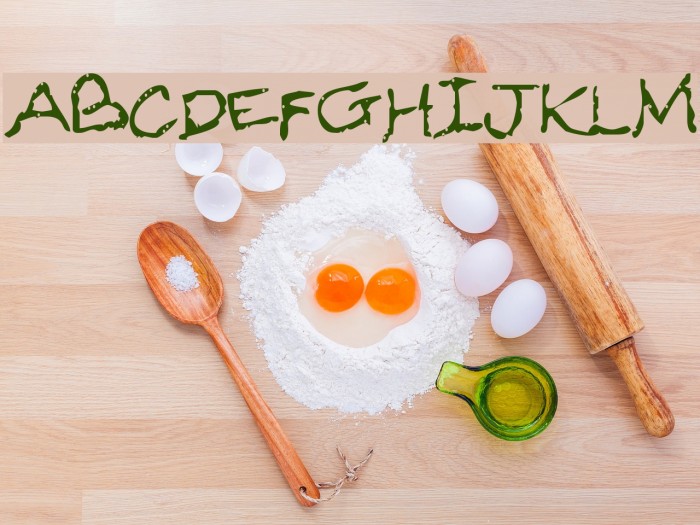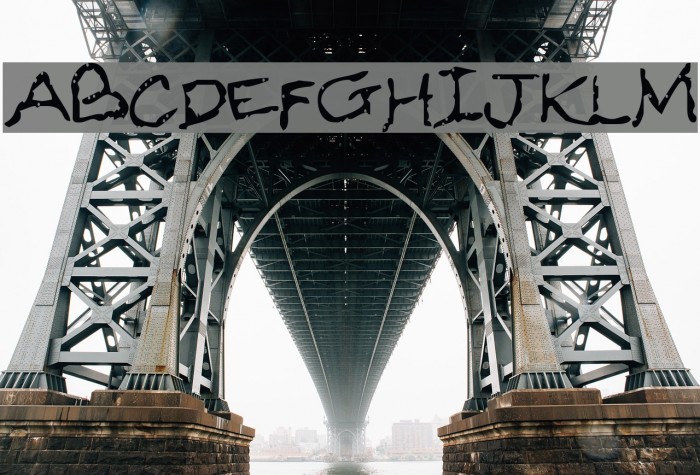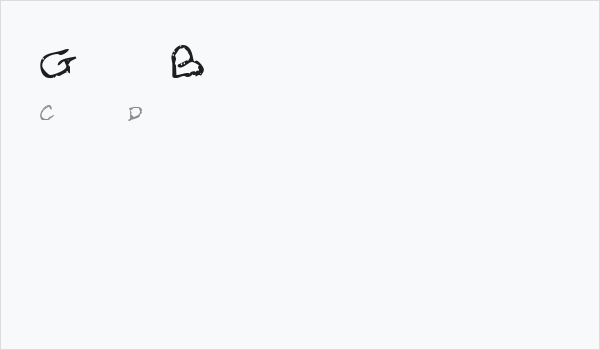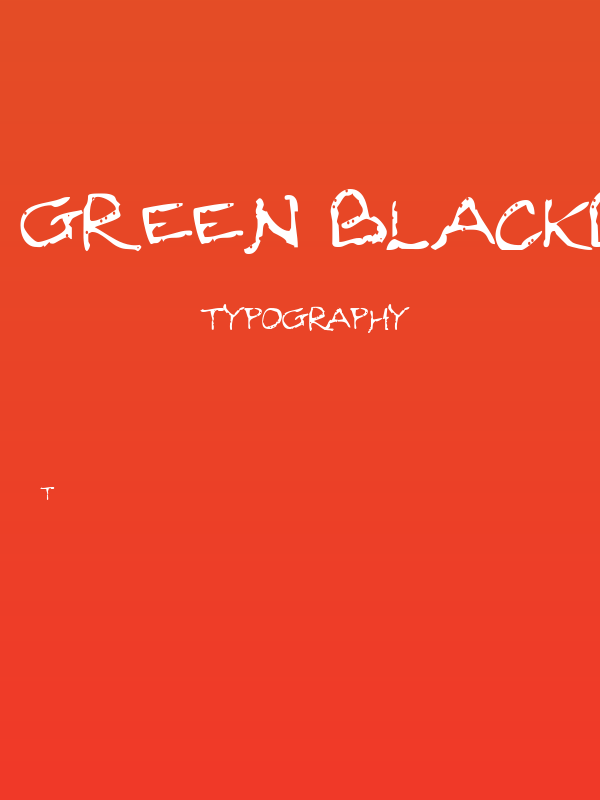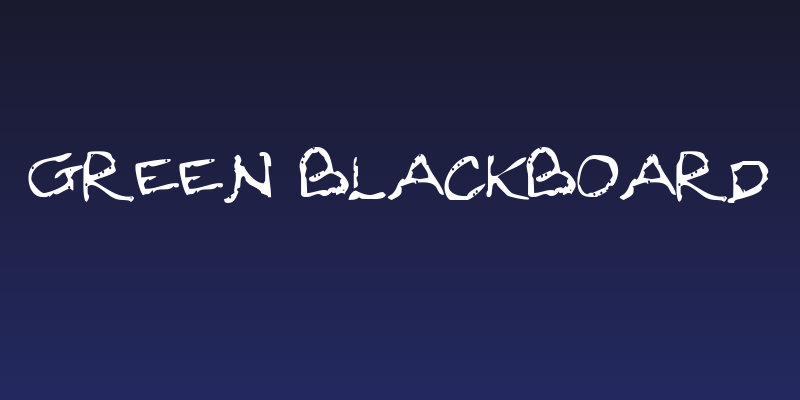
Green Blackboard Font
Green Blackboard Description
This font features a rough, hand-drawn style that mimics the look of chalk on a blackboard. The letters have an irregular, textured appearance, with varying stroke thickness that adds to its casual and informal vibe. The uppercase and lowercase letters maintain a consistent style, with a playful and slightly chaotic arrangement. The numbers and special characters follow the same aesthetic, ensuring a cohesive look across all characters. This font is ideal for designs that require a personal touch or a sense of nostalgia.
| Proposed Projects | Ideal for educational materials, children's book covers, cafe menus, or any project needing a playful, informal touch. |